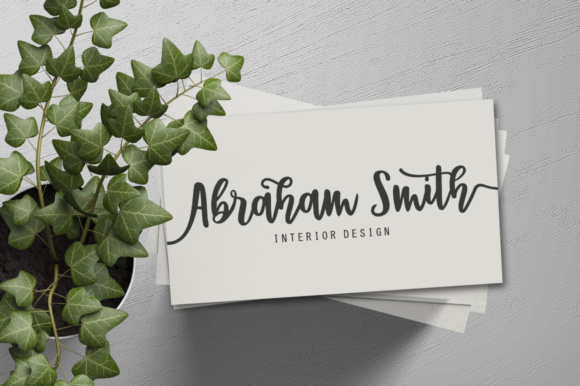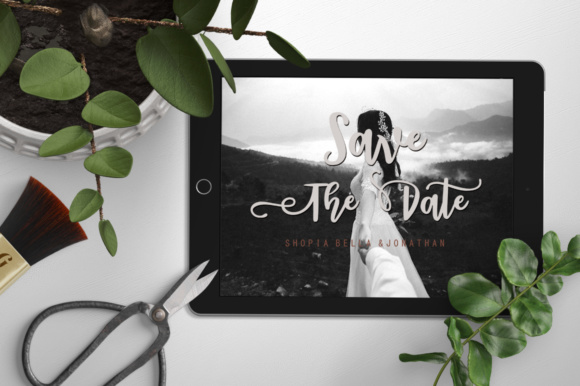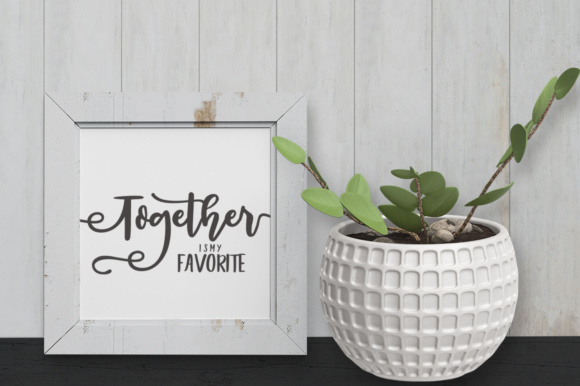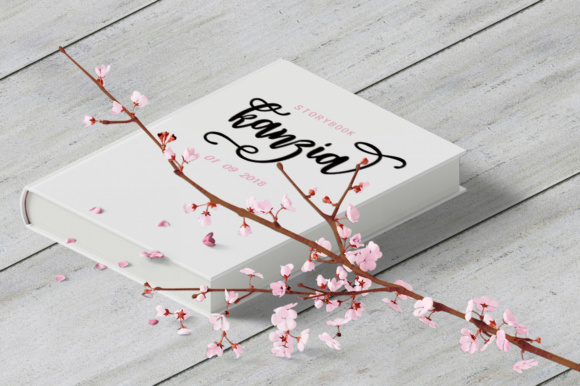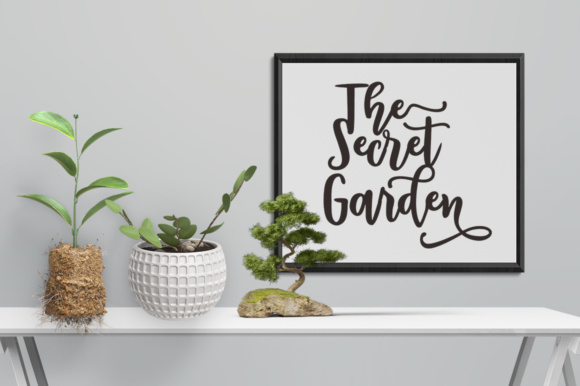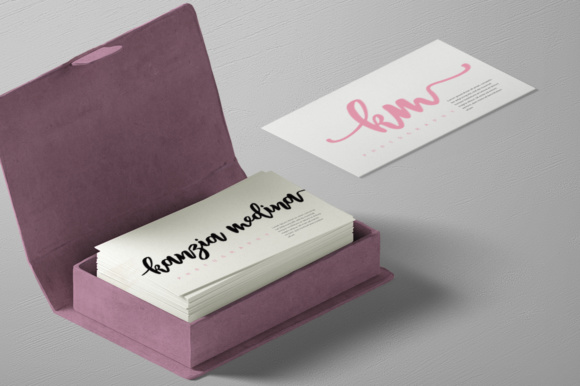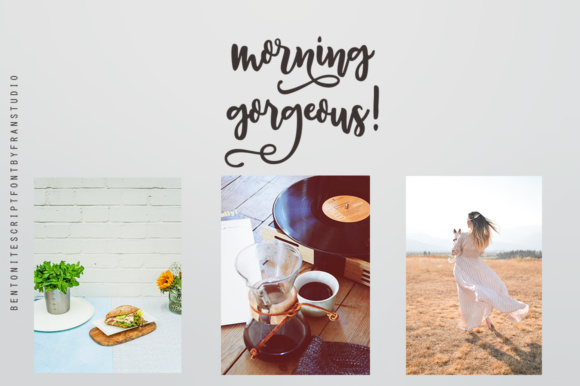
Bentonite Script Font
About Bentonite Script Font
Bentonite Script is a modern calligraphy font with smooth lines and a varying baseline. It will give your design a classic and elegant touch. Bentonite can be used for various purposes such as: headings, signatures, logos, wedding invitations, and much more!